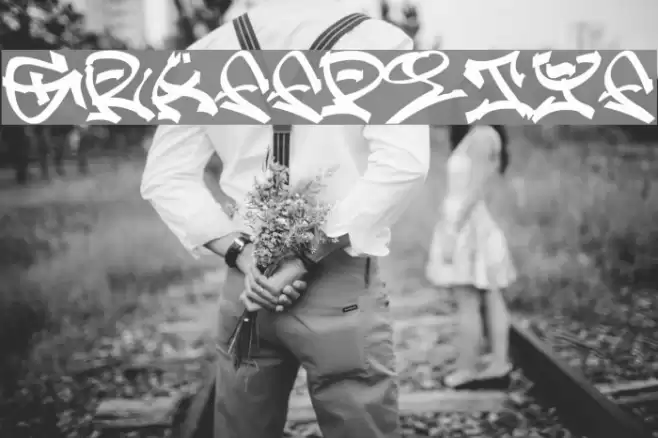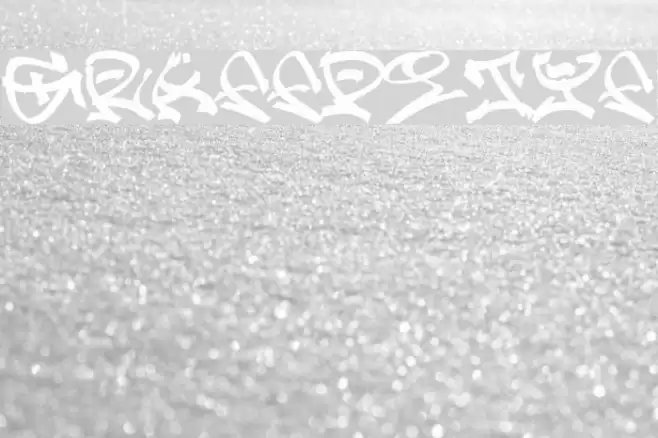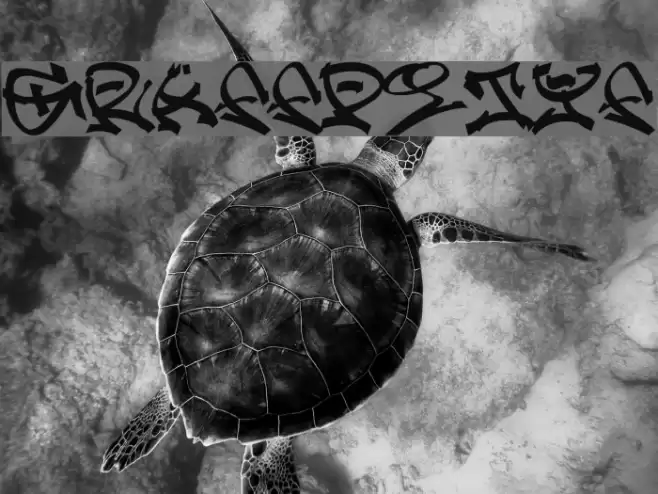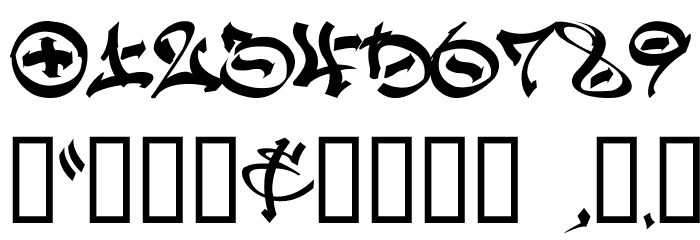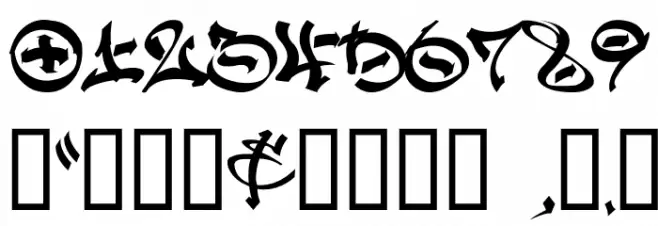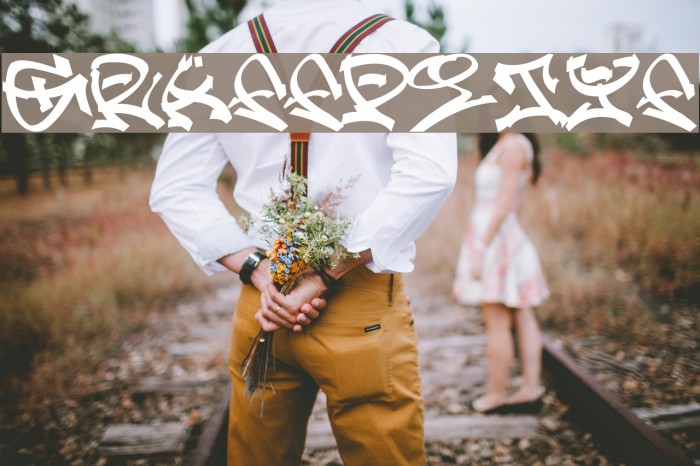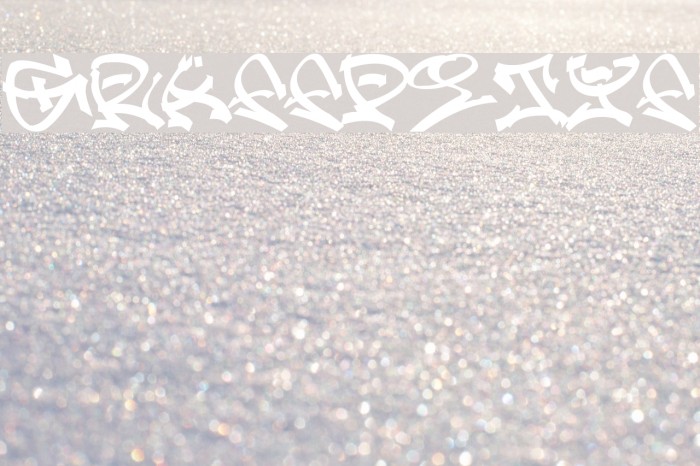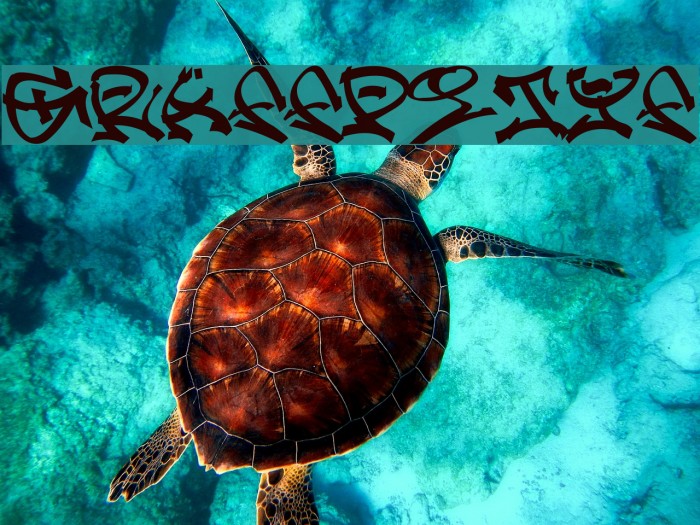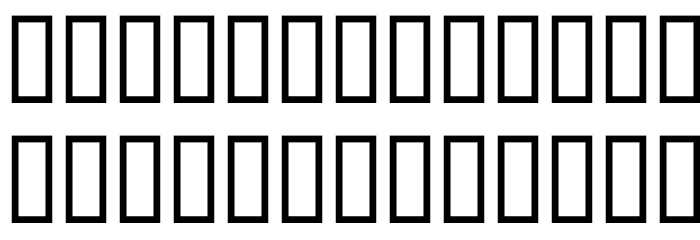
GRAFFPITY_Free Font
GRAFFPITY_Free Description
This font exudes a bold and edgy graffiti style, characterized by its sharp angles and dynamic curves. The uppercase letters are highly stylized, with exaggerated serifs and intricate detailing that give each character a unique, artistic flair. The numbers follow a similar aesthetic, maintaining the bold, urban feel. This font is perfect for projects that require a strong, rebellious statement, such as street art-inspired designs or edgy branding. Its distinct appearance makes it ideal for capturing attention and conveying a sense of creativity and nonconformity.
A bold, graffiti-style font with sharp angles and dynamic curves from Uncategorized fonts.
- Proposed Projects: Street art designs, edgy branding, music album covers, urban-themed posters.
- Overall Style: Modern, Urban